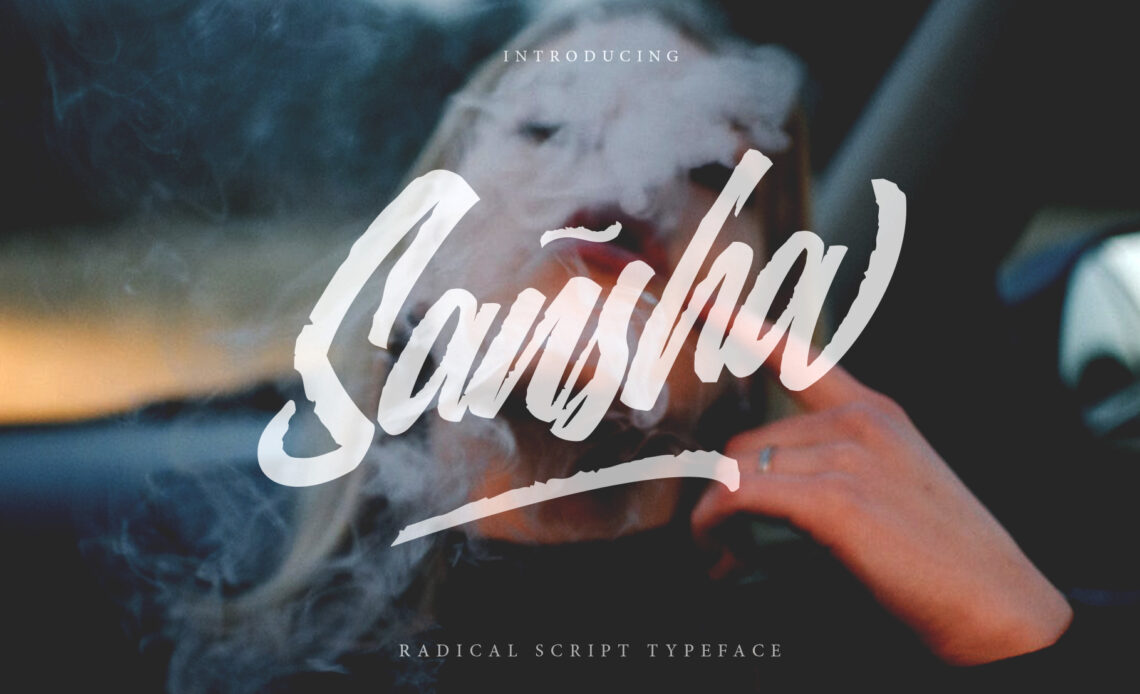
Unleash your creativity with Sansha Font, the pinnacle of handwritten fonts. Dive into a world of endless possibilities, where your imagination takes center stage. With over 370 glyphs and 100+ alternate characters, Sansha grants you unparalleled freedom to express yourself through captivating designs.
Immerse yourself in the beauty of flowing strokes and elegant curves, crafted by the masterful hand of Tegaki. Sansha's enchanting script will elevate your designs, adding a touch of refined sophistication to every project. Whether you seek to create captivating packaging that demands attention or design logos that evoke timeless allure, Sansha is your ultimate font companion.
Indulge in the artistry of Sansha and witness the transformation of your creative vision into a captivating masterpiece. Its versatility knows no bounds, empowering you to explore a myriad of design possibilities. Unleash your inner artist and let Sansha guide you on a journey of creative expression, leaving an unforgettable mark on the world of design.